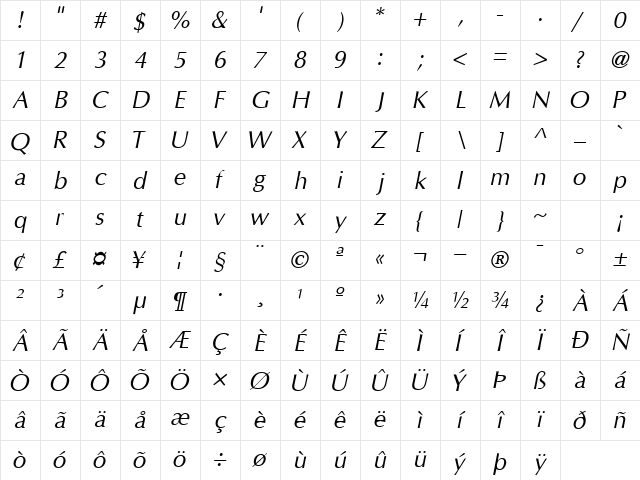
InterfaceSSK is a composed and adaptable typeface that performs quietly and consistently across a wide range of design contexts. The slanted form adds forward momentum and visual energy.
Pro Tip: Use InterfaceSSK for emphasis, pull quotes, and subheadings where its slanted energy can add rhythm to the layout.